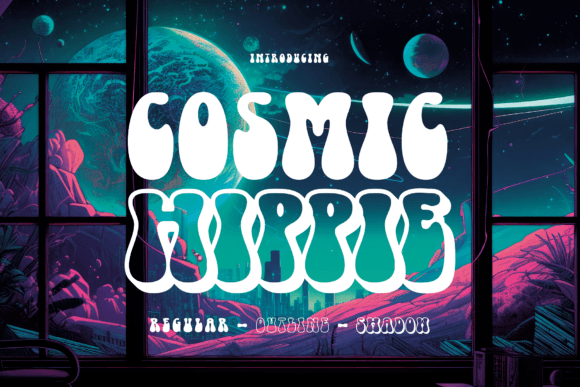
Step into the time machine and immerse yourself in the vibrant and mesmerizing world of the 1970s with Cosmic Hippie Font. Created by HipFonts, this font is a true embodiment of the essence of that extraordinary era.
Transport yourself back to a time of counterculture movements, peace, love, and individuality. Cosmic Hippie Font captures the free-spiritedness and rebellious nature of the 70s, allowing you to infuse your designs with a touch of retro charm.
With its swirling curves and playful letterforms, Cosmic Hippie Font takes you on a nostalgic journey through time. Its bold and psychedelic style adds a dose of excitement and personality to any project, making it a perfect choice for posters, album covers, or any design that craves a touch of nostalgia.
Picture yourself creating eye-catching and captivating visuals that effortlessly capture the spirit of the 70s. Cosmic Hippie Font becomes your trusted companion, empowering you to express a colorful array of emotions and ideas. It is the ultimate tool to elevate your designs and make a statement.
Invoke a sense of nostalgia and let your creativity soar with Cosmic Hippie Font. Its unique aesthetic instantly transports your audience to a groovy world of timeless coolness. Stand out from the crowd and leave a lasting impression with a font that is as bold and unforgettable as the era it represents.
Embrace the power of Cosmic Hippie Font and unlock a world of limitless possibilities. Whether you're designing for a retro-themed event, a vintage-inspired brand, or simply want to add a touch of 70s flair to your creations, this font is your secret weapon. It is the key to captivating your audience and leaving them longing for more.
So, why settle for ordinary when you can embrace the extraordinary? Let Cosmic Hippie Font be your creative companion and embark on a journey to the past, where peace, love, and individuality reigned supreme. Elevate your designs, ignite emotions, and make a statement with this groovy font that stands the test of time.